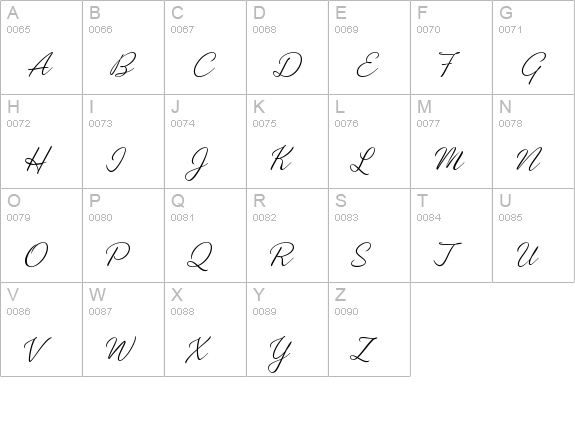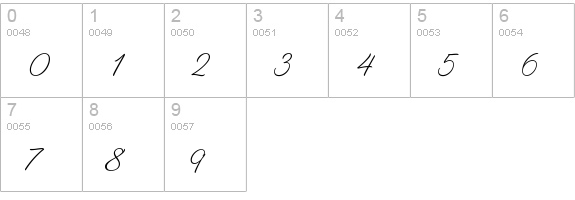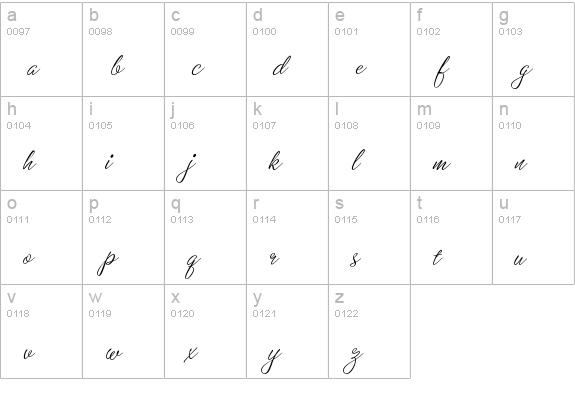
HouseHolidayTTF-Script Font Details
HouseHolidayTTF-Script font is a beautiful and elegant typeface that exudes warmth and friendliness. Its flowing script style conveys a sense of whimsy and joy, making it perfect for adding a touch of charm to your designs. Whether you're creating invitations, greeting cards, posters, or any other project that calls for a touch of sophistication, HouseHolidayTTF-Script font is sure to elevate your work to the next level. The best part is that HouseHolidayTTF-Script font is completely free to download at FontsMarket.com. This means you can easily access this stunning font without any cost, allowing you to bring your creative vision to life without breaking the bank. Don't miss out on the opportunity to enhance your designs with the beauty and grace of HouseHolidayTTF-Script font - download it today and let your creativity soar!